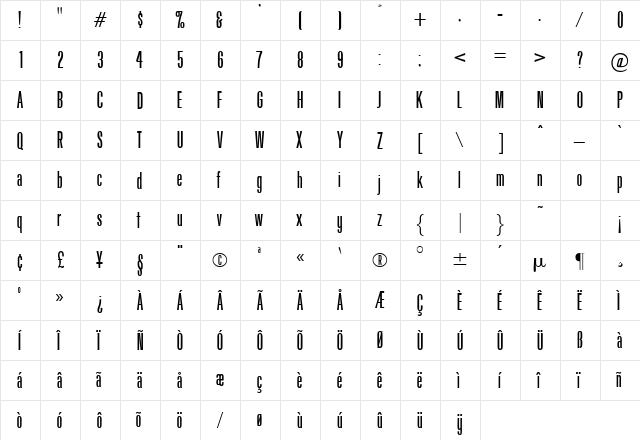
Girth Regular
Design Context for Girth Typeface
Girth takes a measured approach to typography — its balanced proportions and neutral character make it a reliable workhorse for both digital and print work.